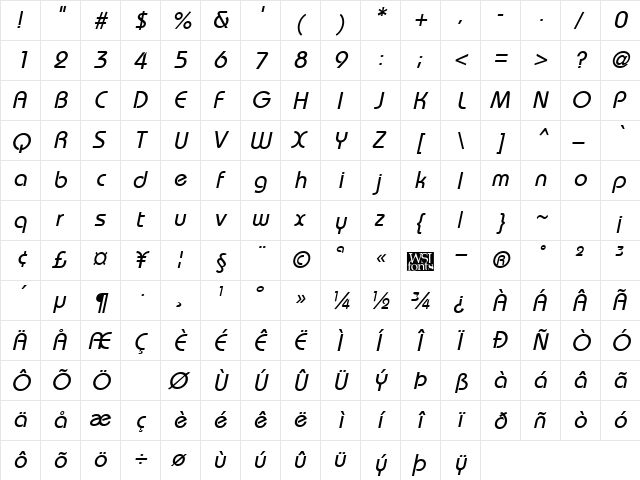
BordeauxMedium Italic
Design Context for BordeauxMedium Typeface
BordeauxMedium offers clean, dependable letterforms without strong stylistic allegiance, making it a practical choice for designers who need flexibility. The slanted form adds forward momentum and visual energy.